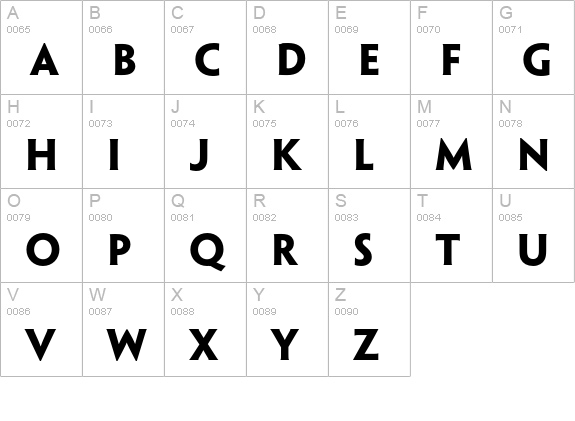
Penumbra Flare Std Bold is a strong, high-contrast variant in the Penumbra typeface family \xE2\x80\x94 well suited to headlines, attention-grabbing titles, and strong calls-to-action.
Penumbra Flare Std Bold font is a stunning typeface that exudes elegance and sophistication. Its bold and confident strokes make a strong statement, making it perfect for attention-grabbing headlines, logos, and promotional materials. With its unique design, Penumbra Flare Std Bold stands out from other fonts, making any text it adorns instantly captivating and memorable. The sharp angles and smooth curves create a harmonious balance, enhancing the legibility and readability of the text. This font is versatile and adaptable, suitable for a wide range of projects across various industries. Whether you're designing a magazine layout, creating a website, or working on a branding project, Penumbra Flare Std Bold will elevate your design to new heights. One of the most enticing aspects of Penumbra Flare Std Bold font is that it is freely available to download at FontsMarket.com. This means that you can enjoy the benefits of this exceptional typeface without any cost. It's a fantastic opportunity for designers, students, and enthusiasts to access a high-quality font that adds a touch of sophistication to their creations. Penumbra Flare Std Bold font is a true gem in the world of typography. Its boldness, elegance, and availability make it an excellent choice for any design project. Download it now from FontsMarket.com and discover the endless possibilities that this font brings to your creative endeavors.